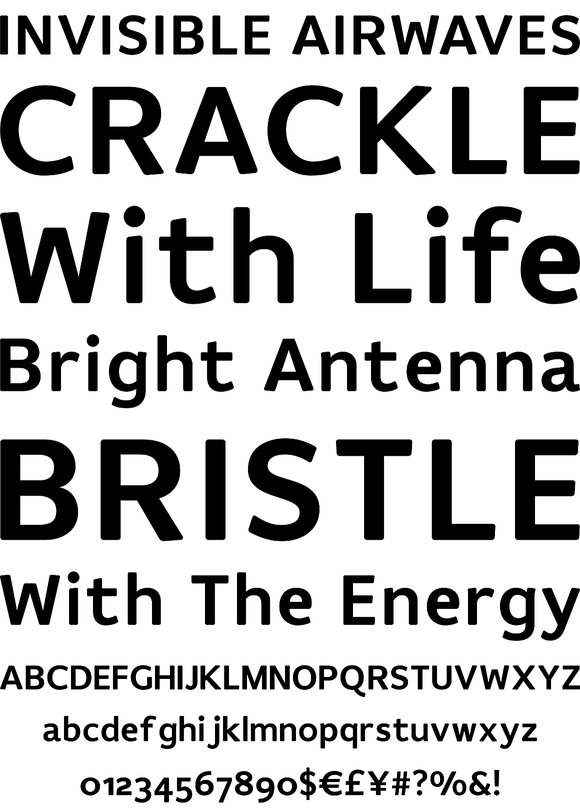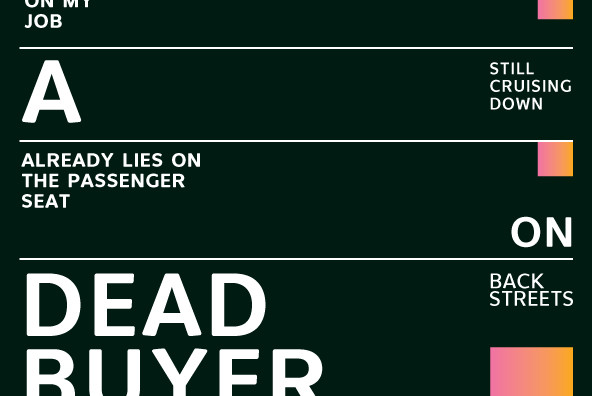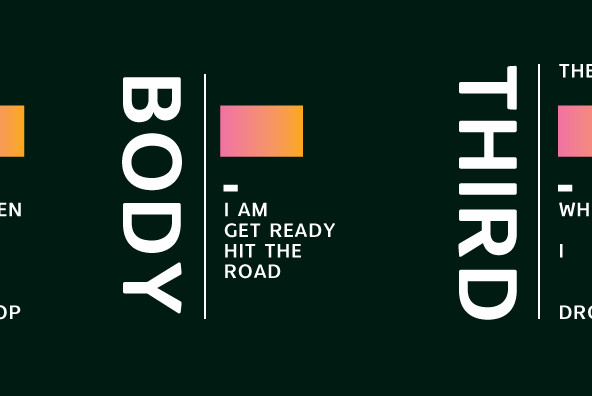
Designed by Samy Halim, Flembo Title is a FAMILY of 6 Sans Serif fonts that work seamlessly with Flembo Text styles.Contemporary, clean, and trendy. Excellent for print or web.